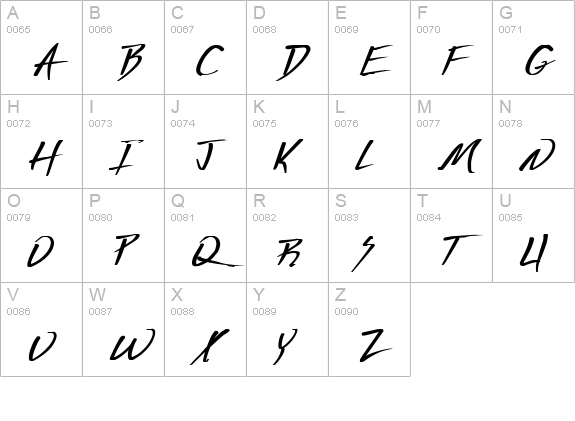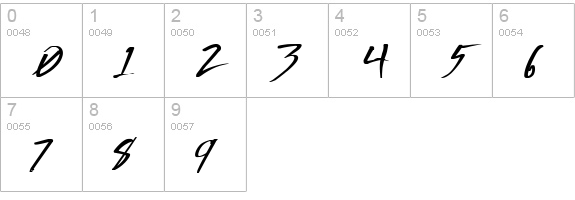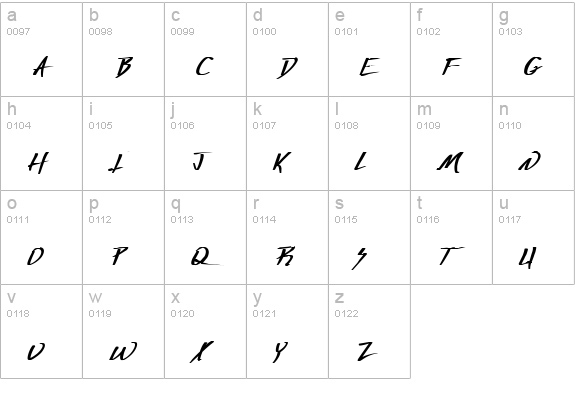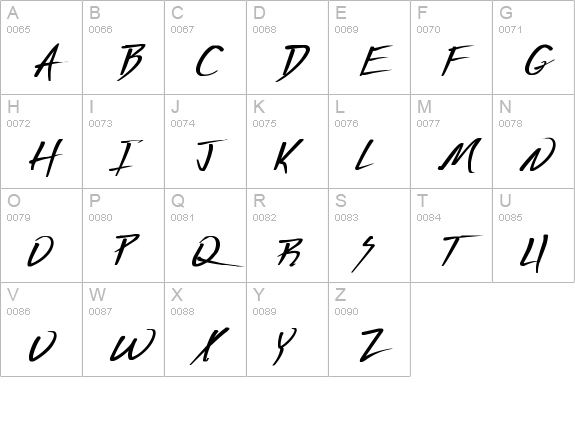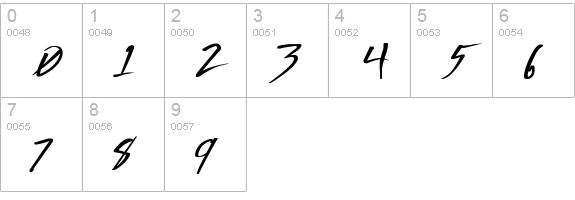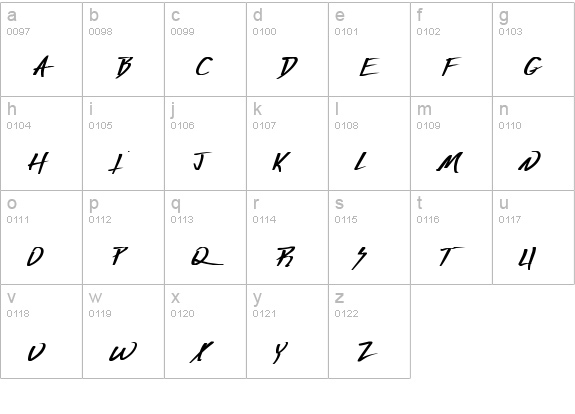
Deranged 1 Font Details
Deranged 1 font is a captivating and edgy typeface that exudes a sense of chaos and unpredictability. Its jagged and distorted letterforms give it a deranged and off-kilter appearance, making it perfect for projects that require a bold and unconventional touch. The unique design of Deranged 1 font is sure to grab attention and make a statement in any creative endeavor. Best of all, Deranged 1 font is available for free download at FontsMarket.com. This means you can easily add this striking typeface to your collection without breaking the bank. Whether you're designing posters, album covers, or social media graphics, Deranged 1 font will bring a sense of madness and intrigue to your work. Download it today and unleash its deranged charm in your projects!